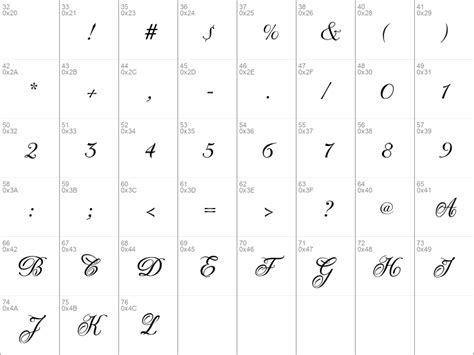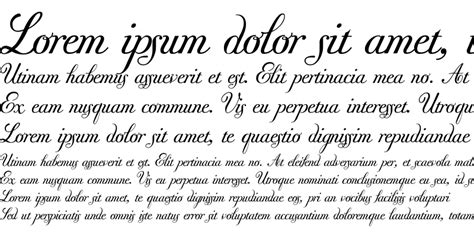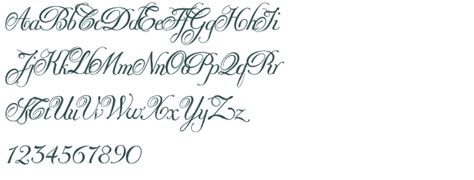
Donna Bodoni Aa Script Font - Download free Donna Bodoni Aa Script Regular font ... / Pdf extract postscript font name:. Donna bodoni was inspired by david farey. English, french, german, italian, maltese, polish, turkish. Donna bodoni aa script regular font. Donna bodoni aa script pdf font preview. Complete family of 3 fonts: